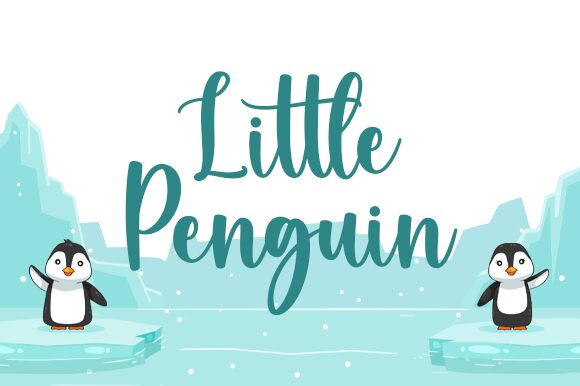
Little Penguin
Little Penguin is a stunning calligraphy font by Nirmala Creative that's perfect for adding a touch of elegance and sophistication to any project. With its fluid, sweeping strokes and delicate curves, this font exudes a sense of refinement that's ideal for use in wedding invitations, formal correspondence, or high-end branding materials. The semi-bold font weight makes it easy to read at any size, while the narrow width allows for maximum versatility in layout design. Whether you're creating a logo for an upscale boutique or crafting beautiful stationery for your clients, Little Penguin is sure to impress.